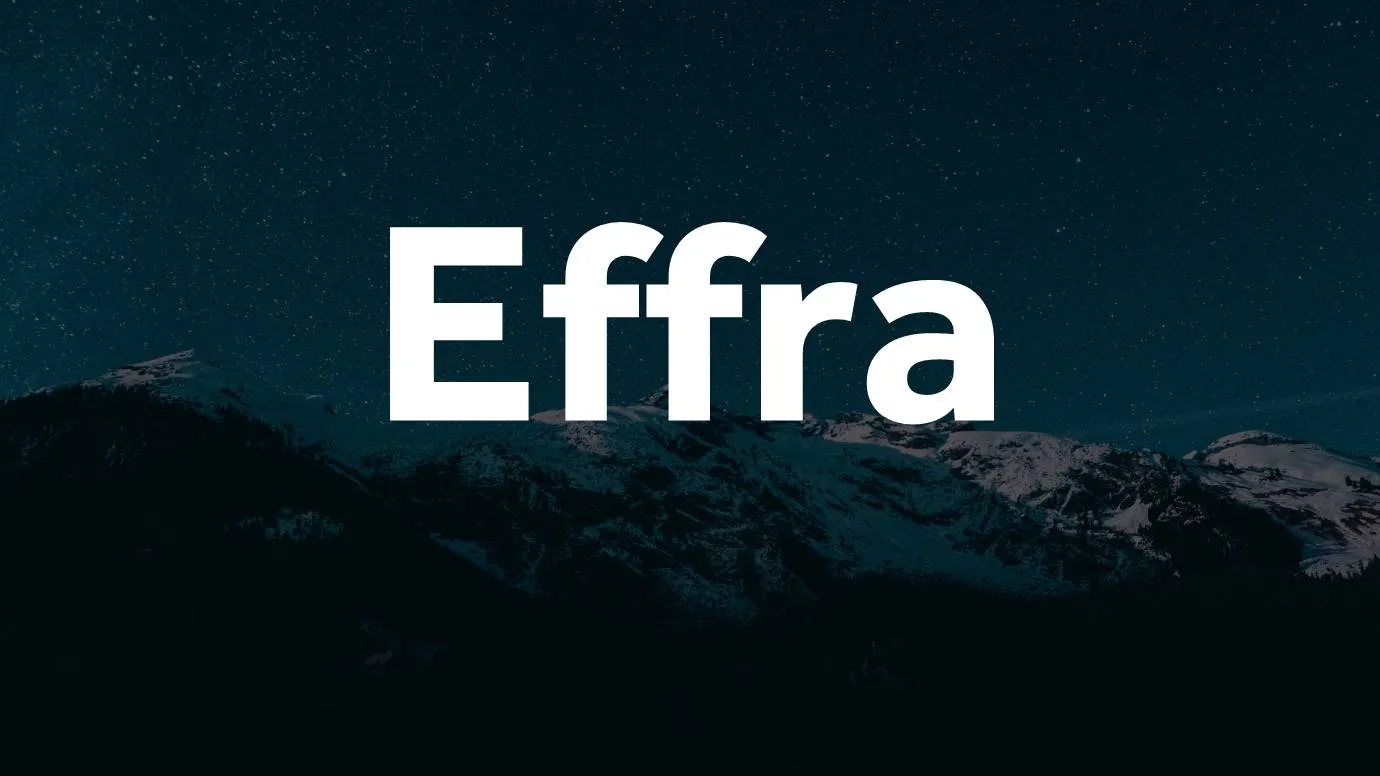
Effra Font Family is belonging to the Sans-serif typeface family that was designed by the great typefaces designers Fabio Luiz Haag and Jonas Schudel. It was published through Dalton Maag in the year 2008.
Effra font changed into based totally in 1991 in London, Dalton Maag ltd presents typeface that looks like Bebas kai Font design, font engineering, and font has great styles for corporate customers and branding organizations.
Effra Font Family